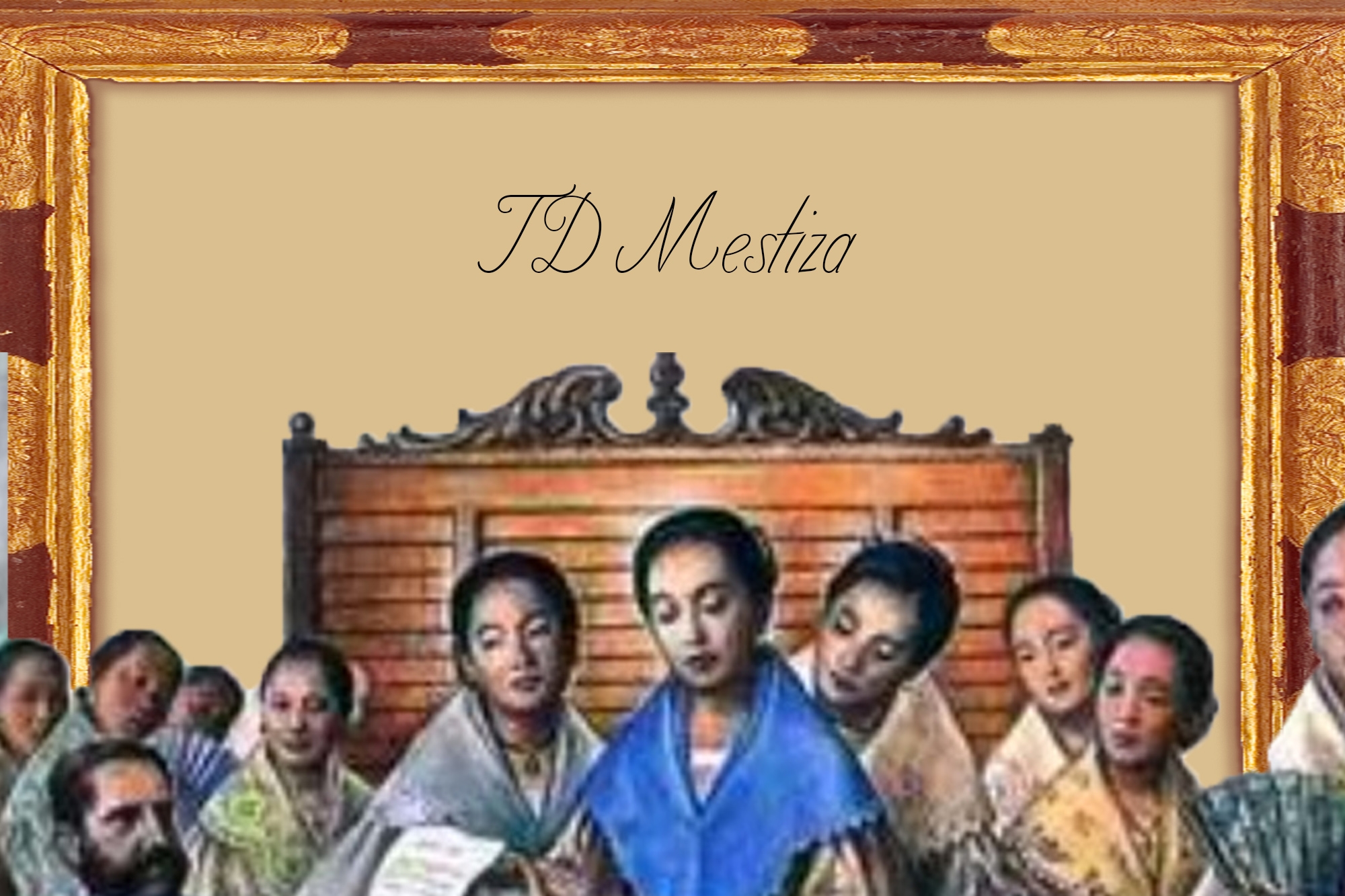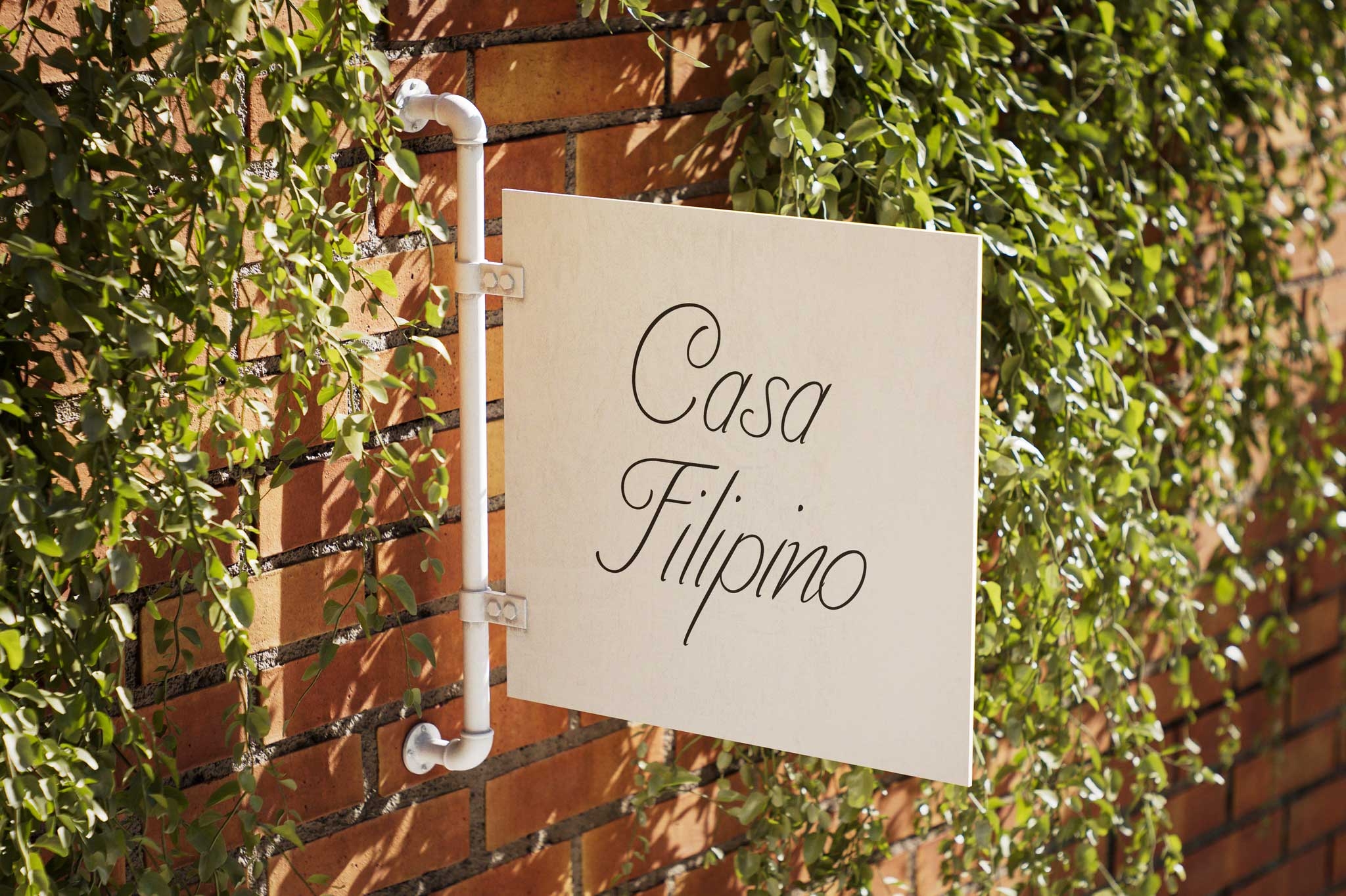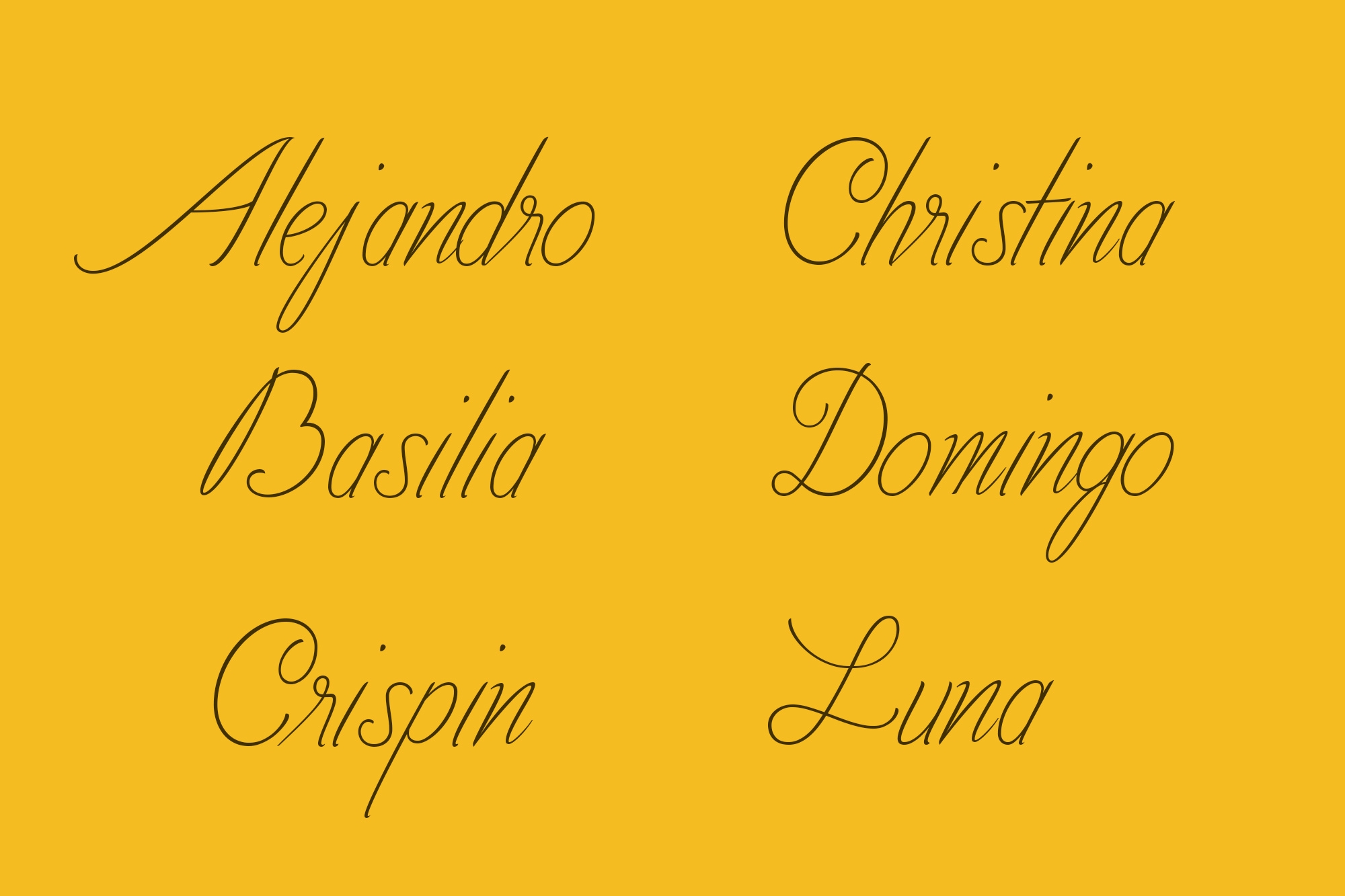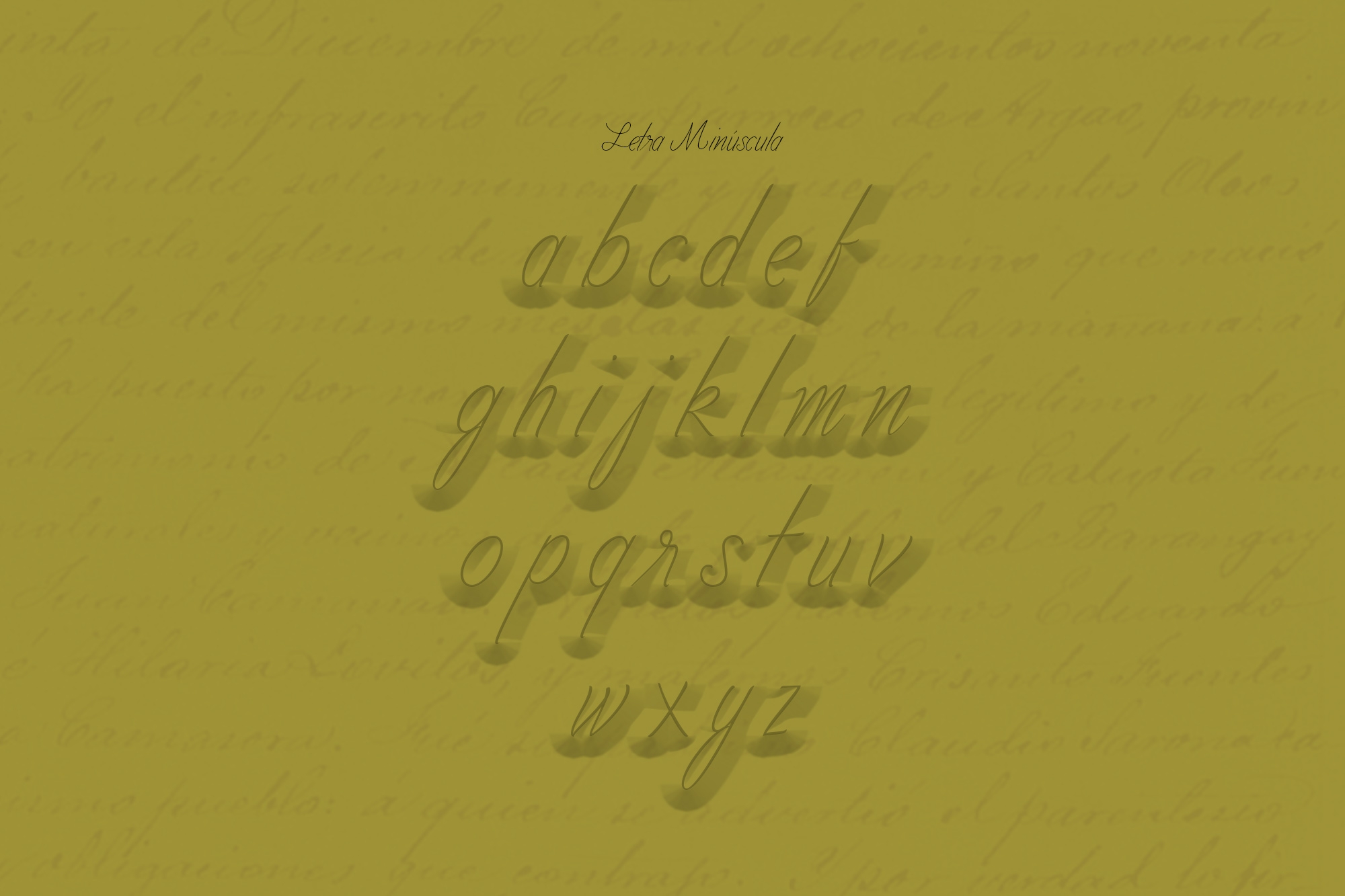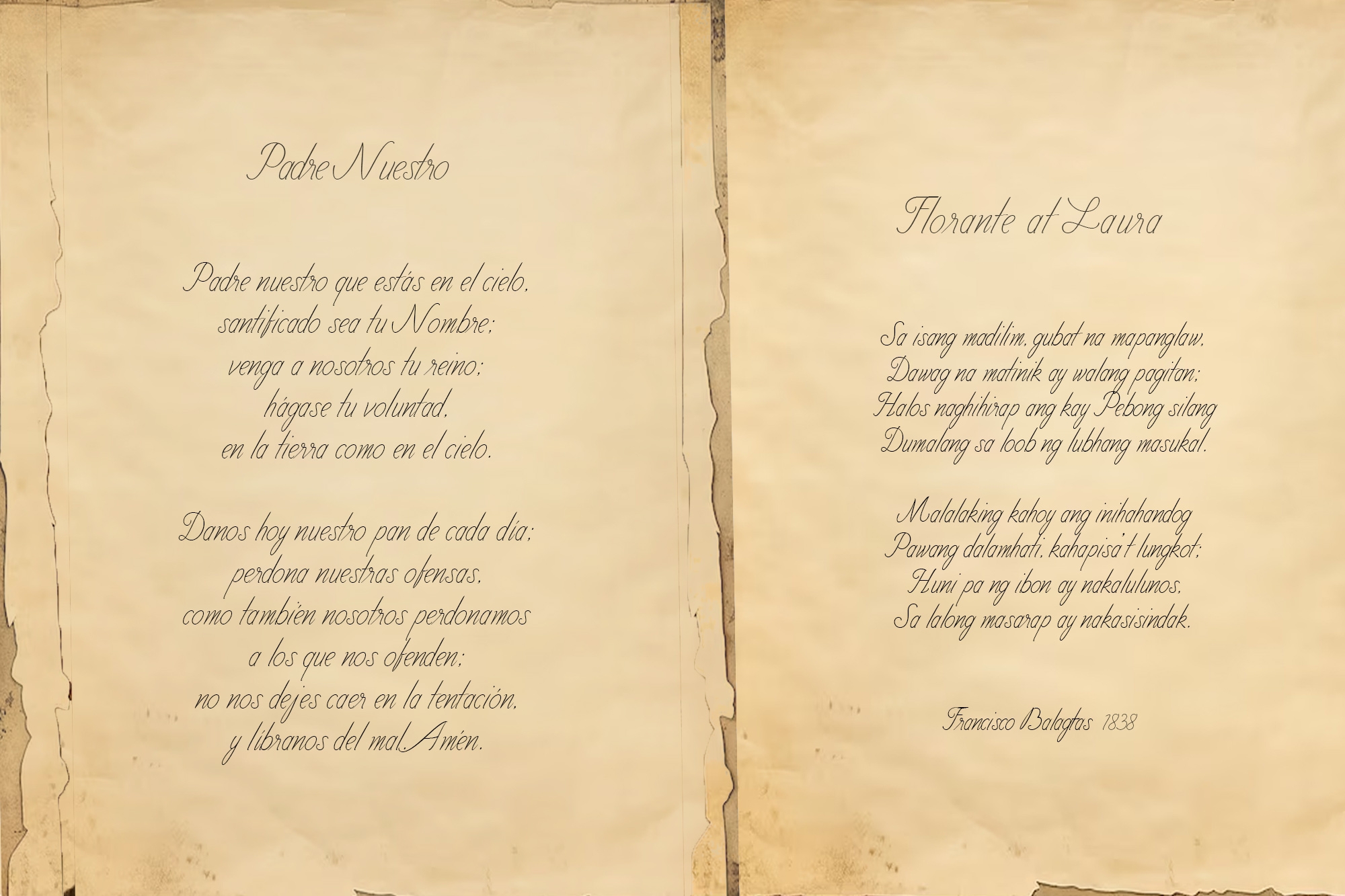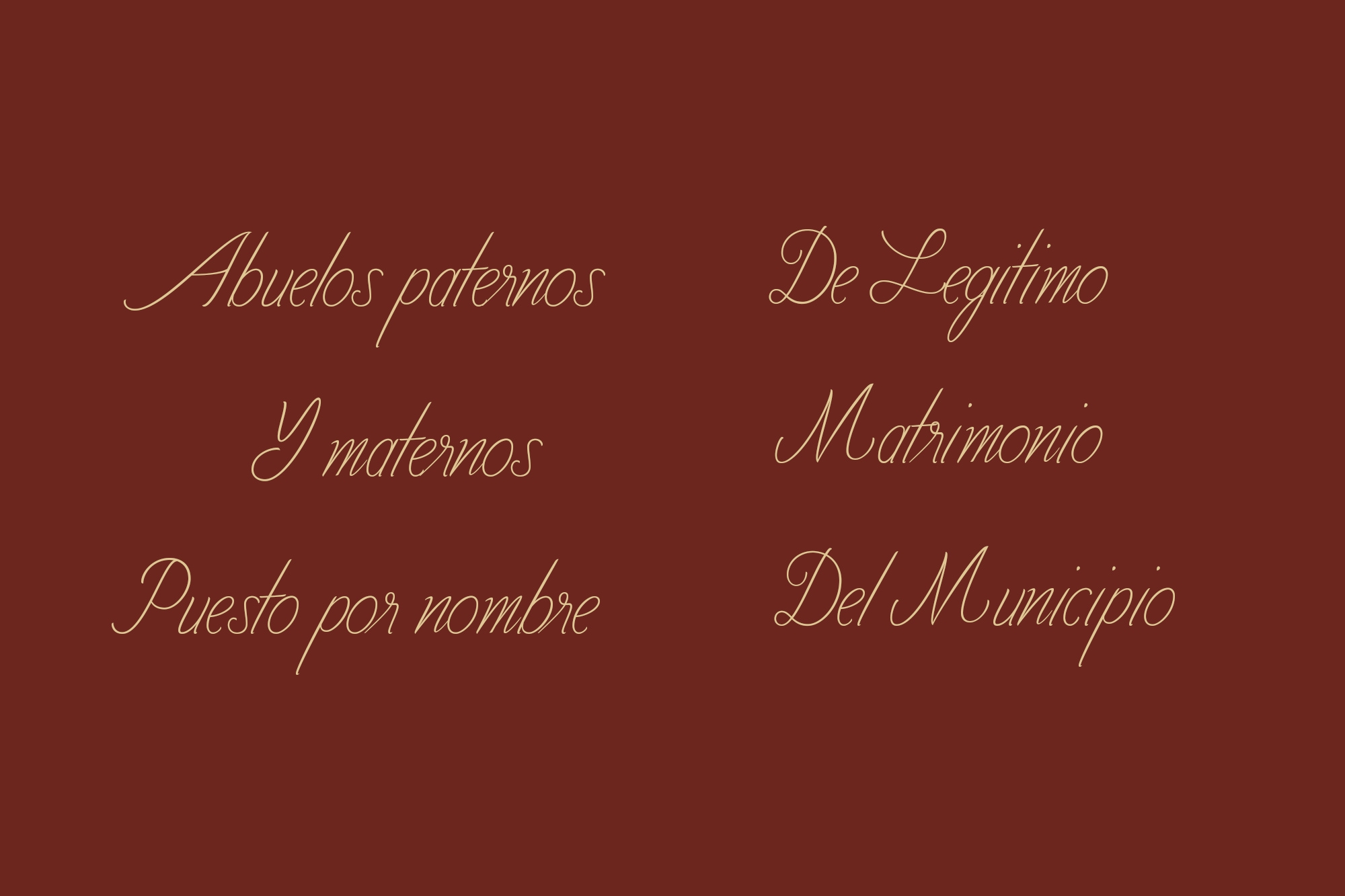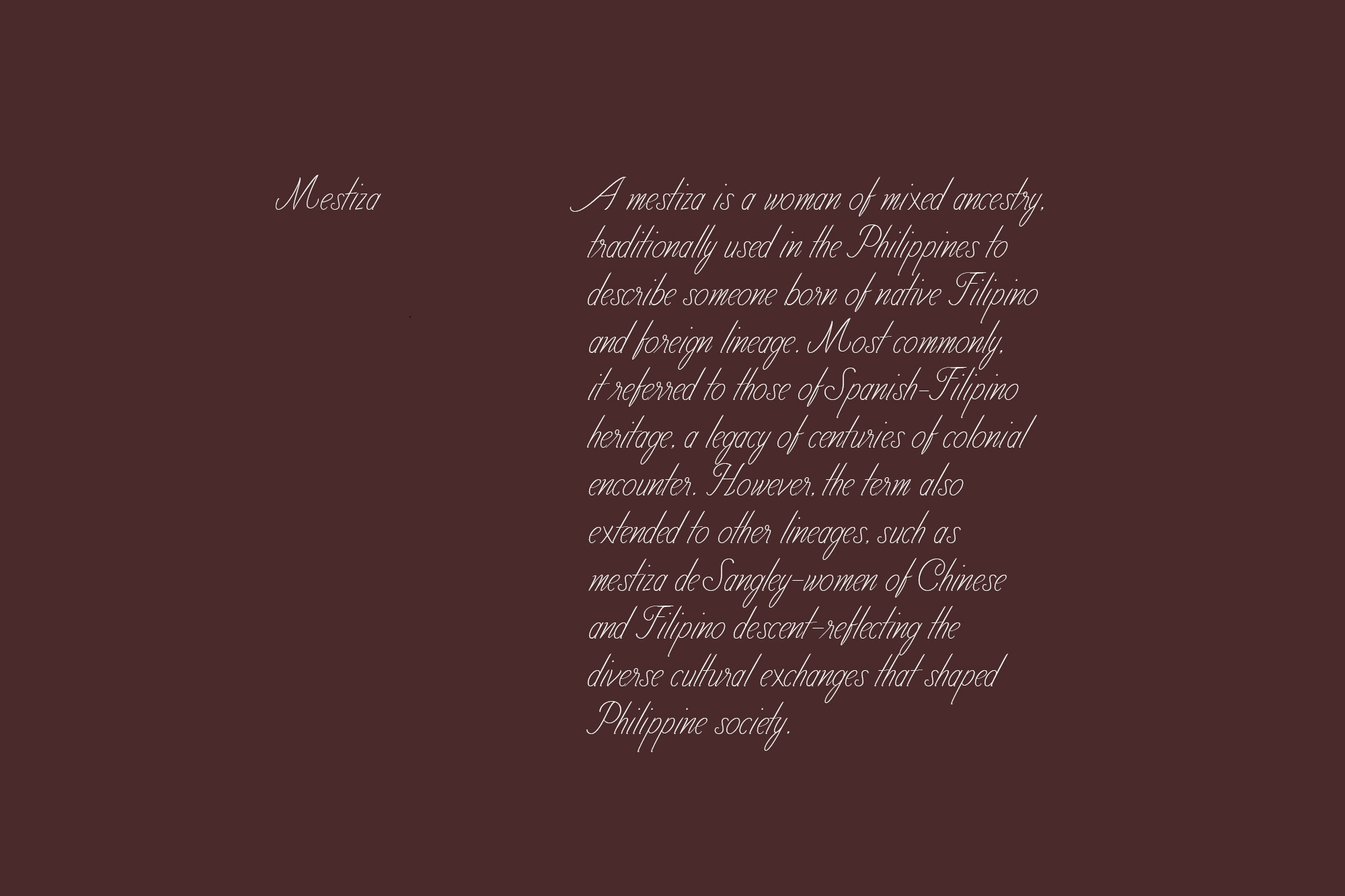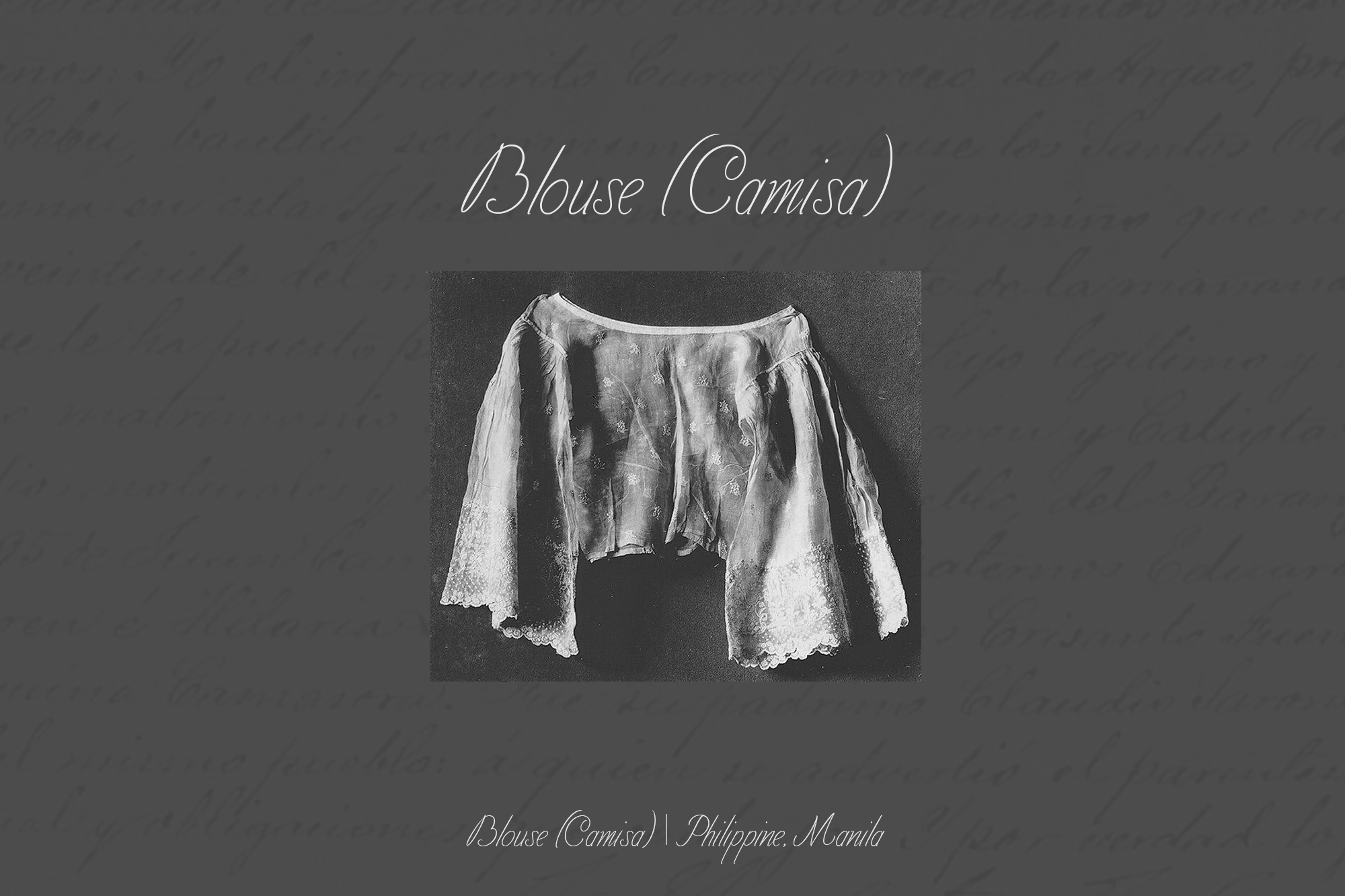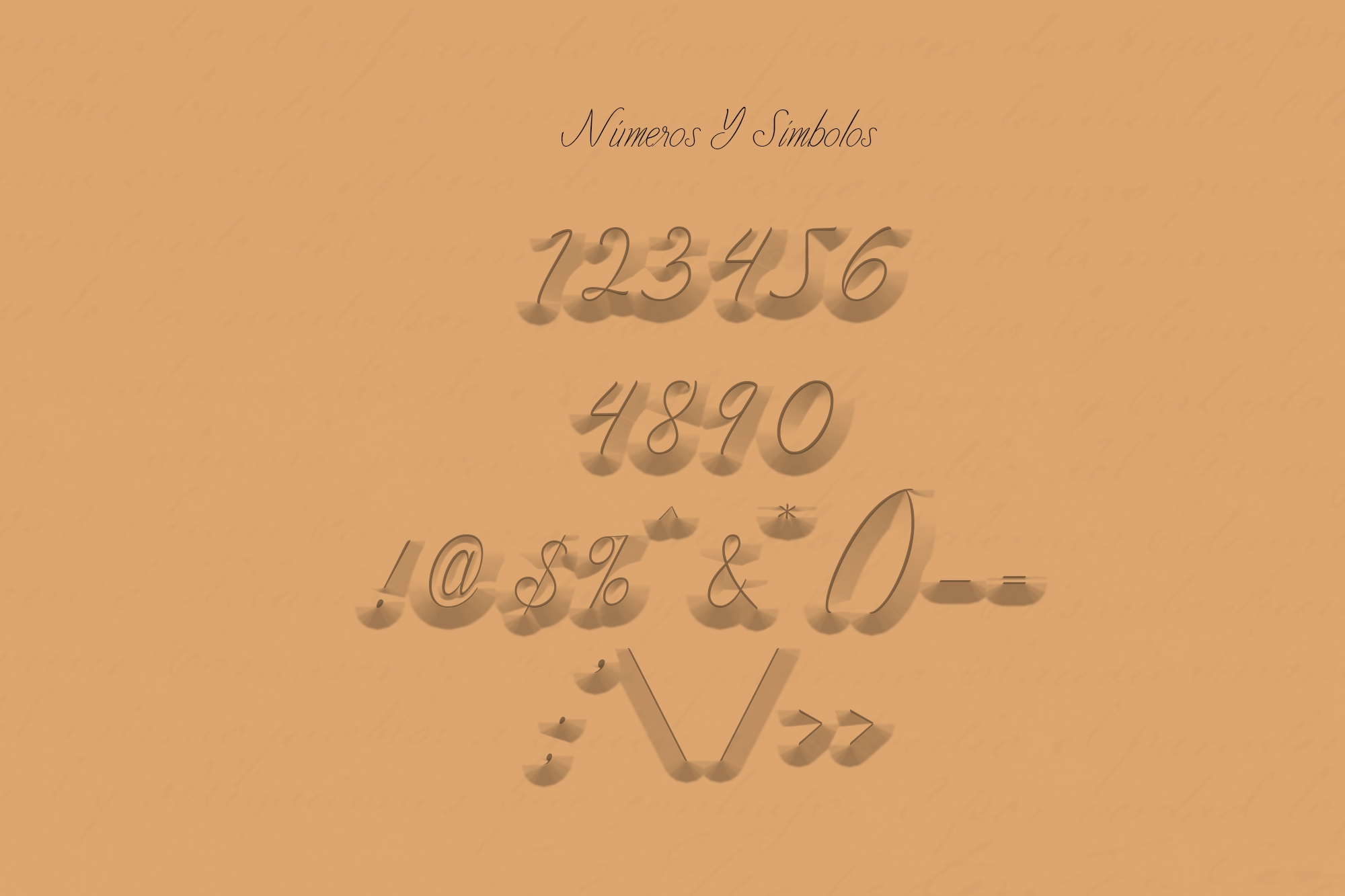
TD Mestiza font by Tribox Design
Rooted in the ornate letterforms of the Spanish colonial era, TD Mestiza draws inspiration from the scripts preserved in church archives—birth and death certificates, family records, and genealogical documents that once chronicled entire lifetimes.
The name mestiza itself carries history: in the Philippines, it described women of mixed ancestry, most often of Spanish and Filipino descent, though it also embraced other heritages such as the mestiza de Sangley of Chinese lineage. Over time, the word came to signify not just lineage, but also beauty, refinement, and the cultural fusion that shaped a nation.
This typeface is more than design; it is a journey. Created by two partners retracing their ancestry, TD Mestiza embodies the convergence of cultures, the resilience of memory, and the quiet elegance of archival ink brought into the present.
With its refined yet storied forms, TD Mestiza bridges past and present—an homage to history, a vessel for identity, and a contemporary revival of tradition.